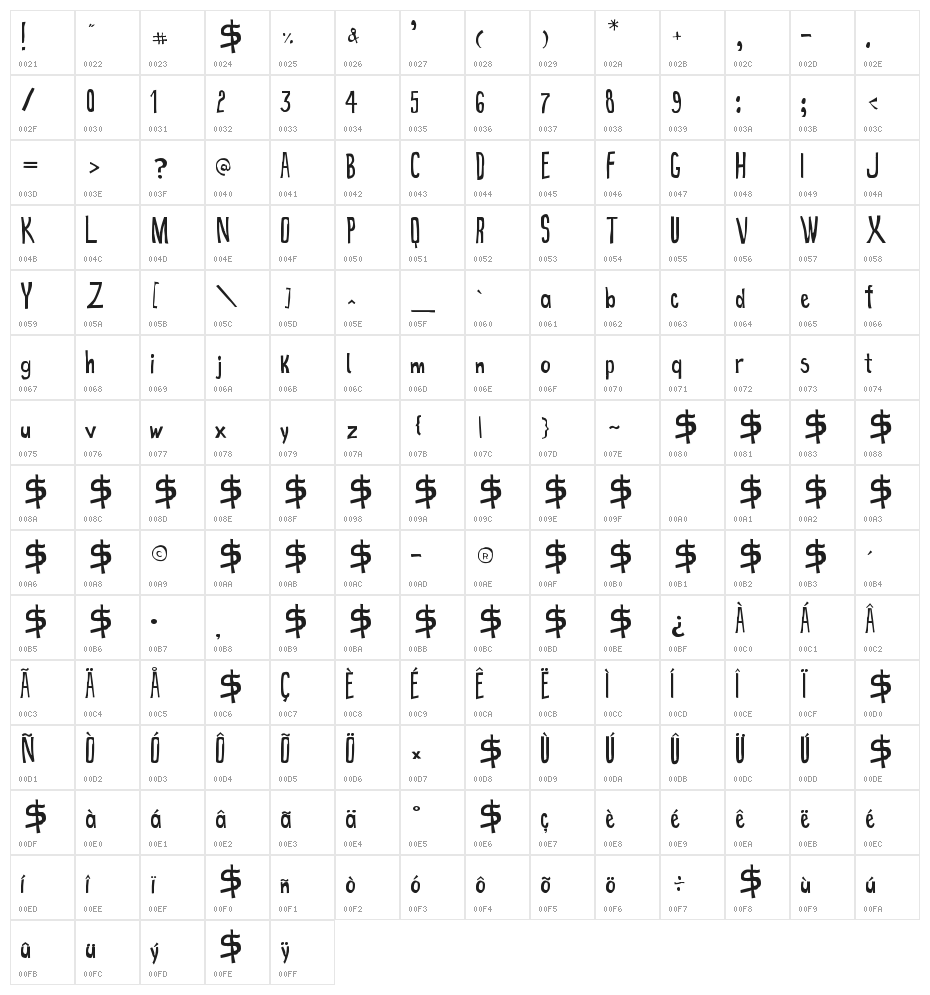
True 2D Font
True 2D Description
This font features a playful and quirky design with irregular, hand-drawn strokes that give it a lively and informal appearance. The uppercase letters are tall and narrow, while the lowercase letters maintain a consistent style with a slightly more relaxed form. The numerals are bold and match the overall whimsical style of the alphabet. Special characters are creatively designed, adding to the font's unique charm. The font's uneven stroke widths and varied character heights contribute to its distinctive, artistic look, making it ideal for projects that require a fun and engaging typeface.